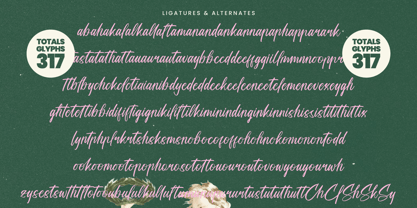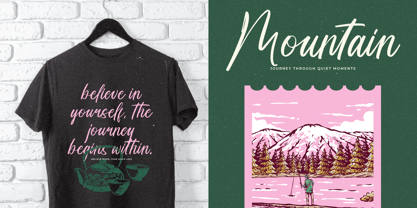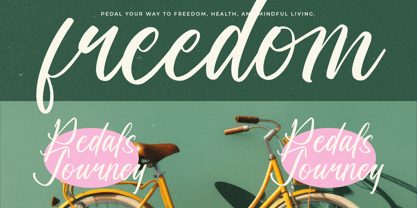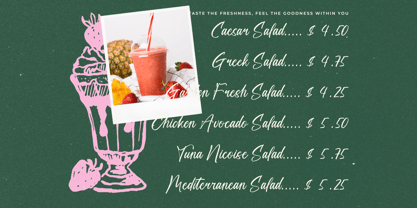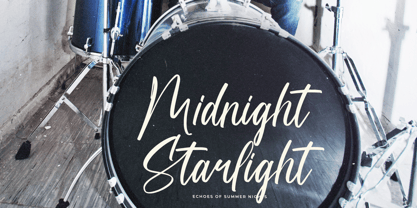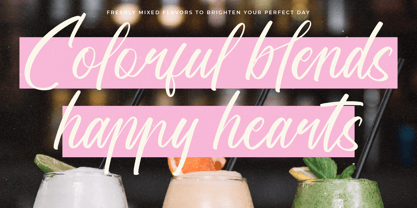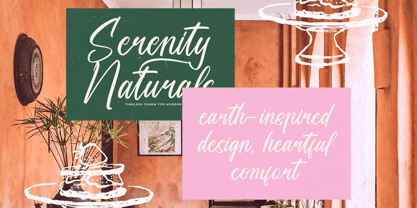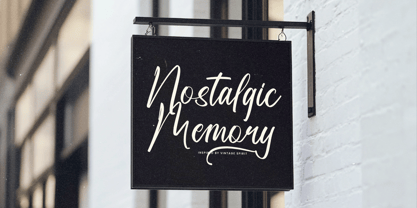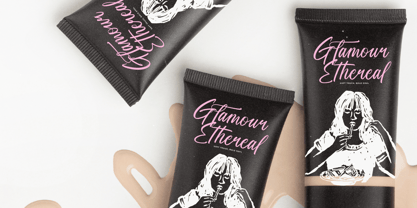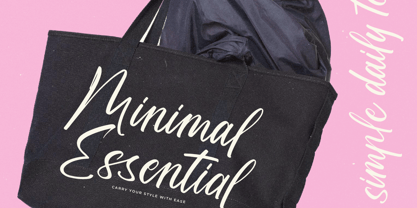
Drinklife Travelling
by Stylishtype Studio
The Drinklife Travelling Font Family was designed by Heru Utama Putra and published by Stylishtype Studio. Drinklife Travelling contains 2 styles and family package options. More about this family
Drinklife Travelling - Modern Handwritten Font , from Stylishtype , Suitable for any projects such as: logos, branding projects, homeware designs, product packaging, mugs, quotes, posters, shopping bags, t-shirts, book covers, name card, invitation cards, greeting cards, label, photography, watermark, special events, and all your other luxury and beautiful projects that need a Luxury Script taste.